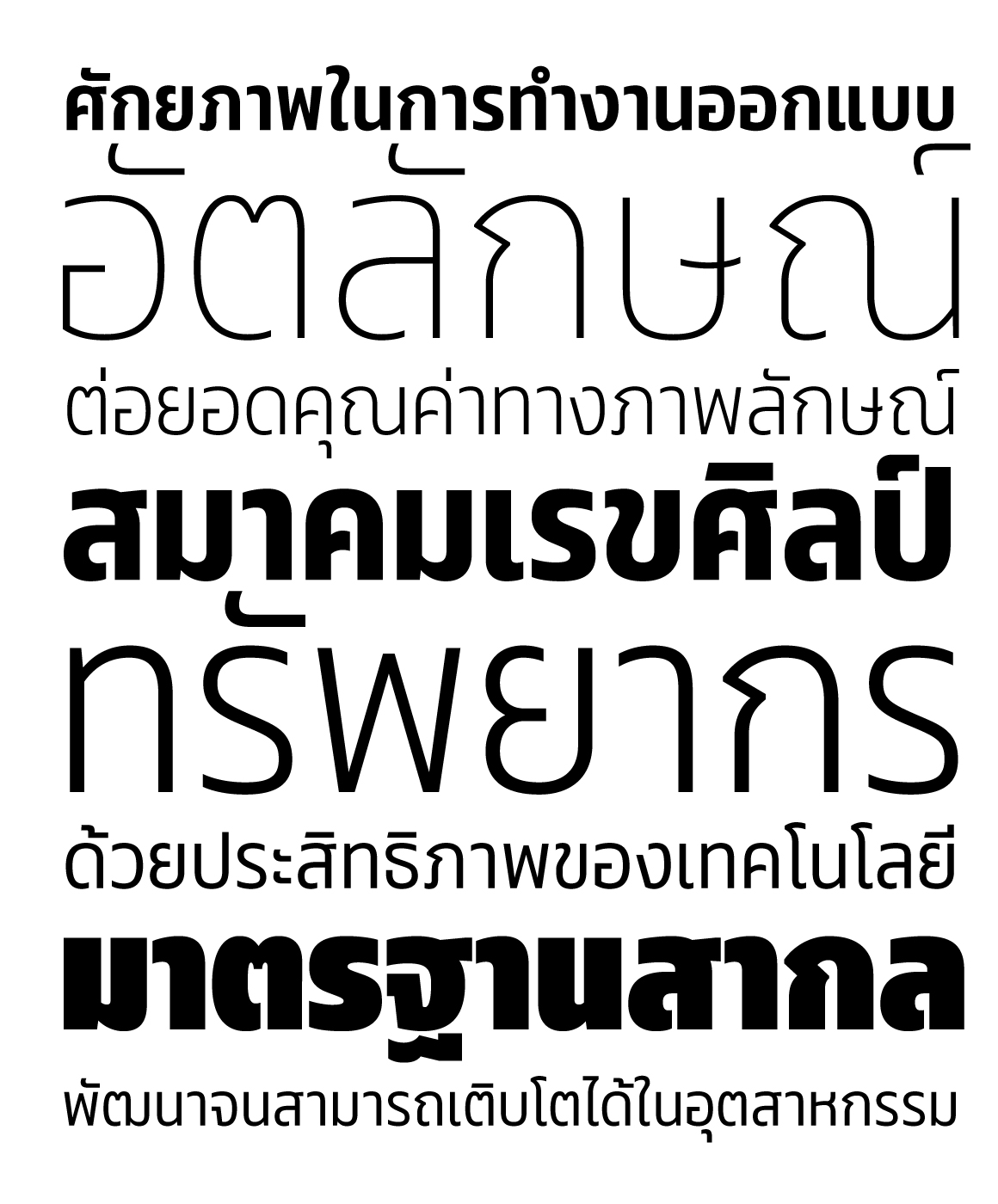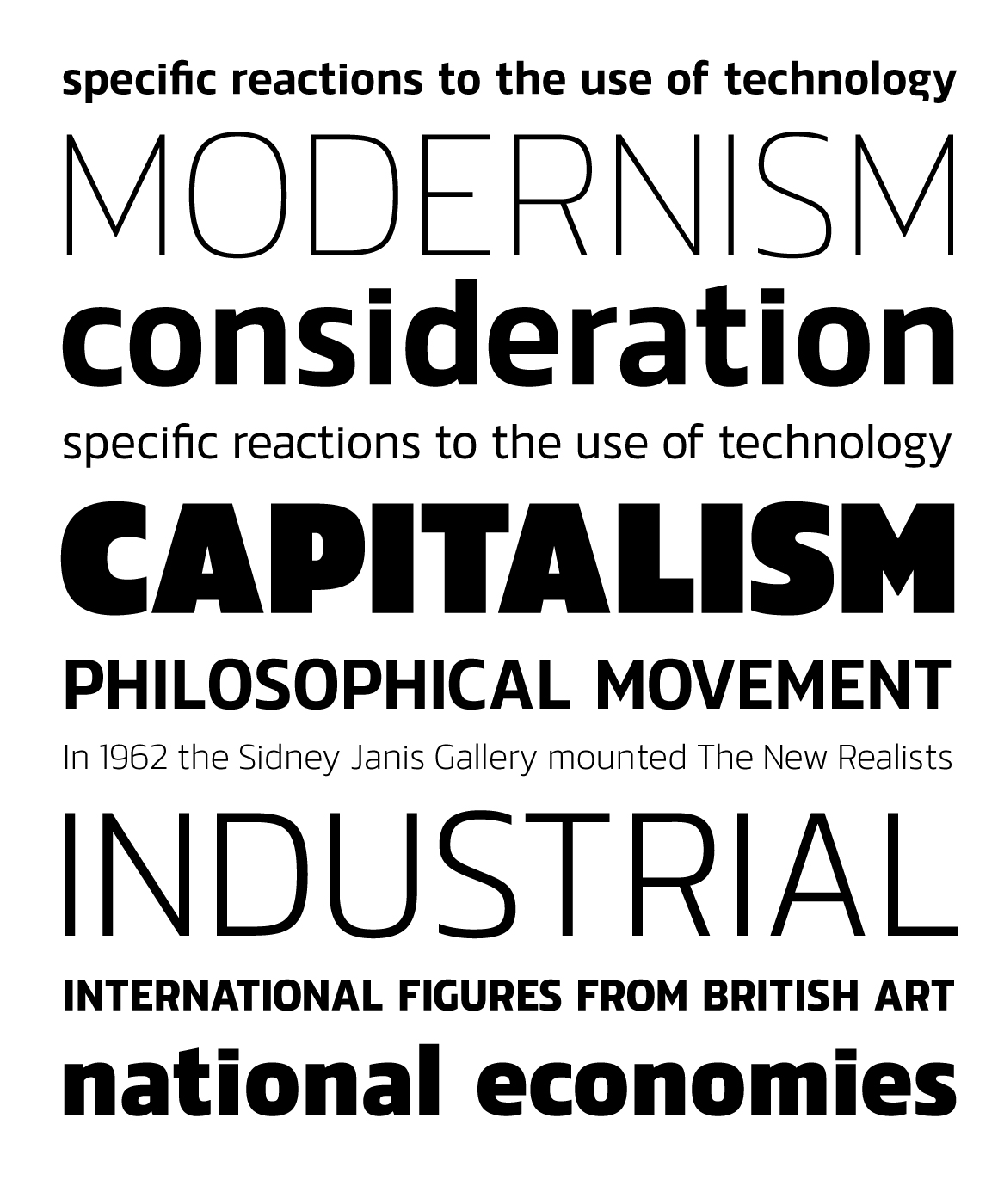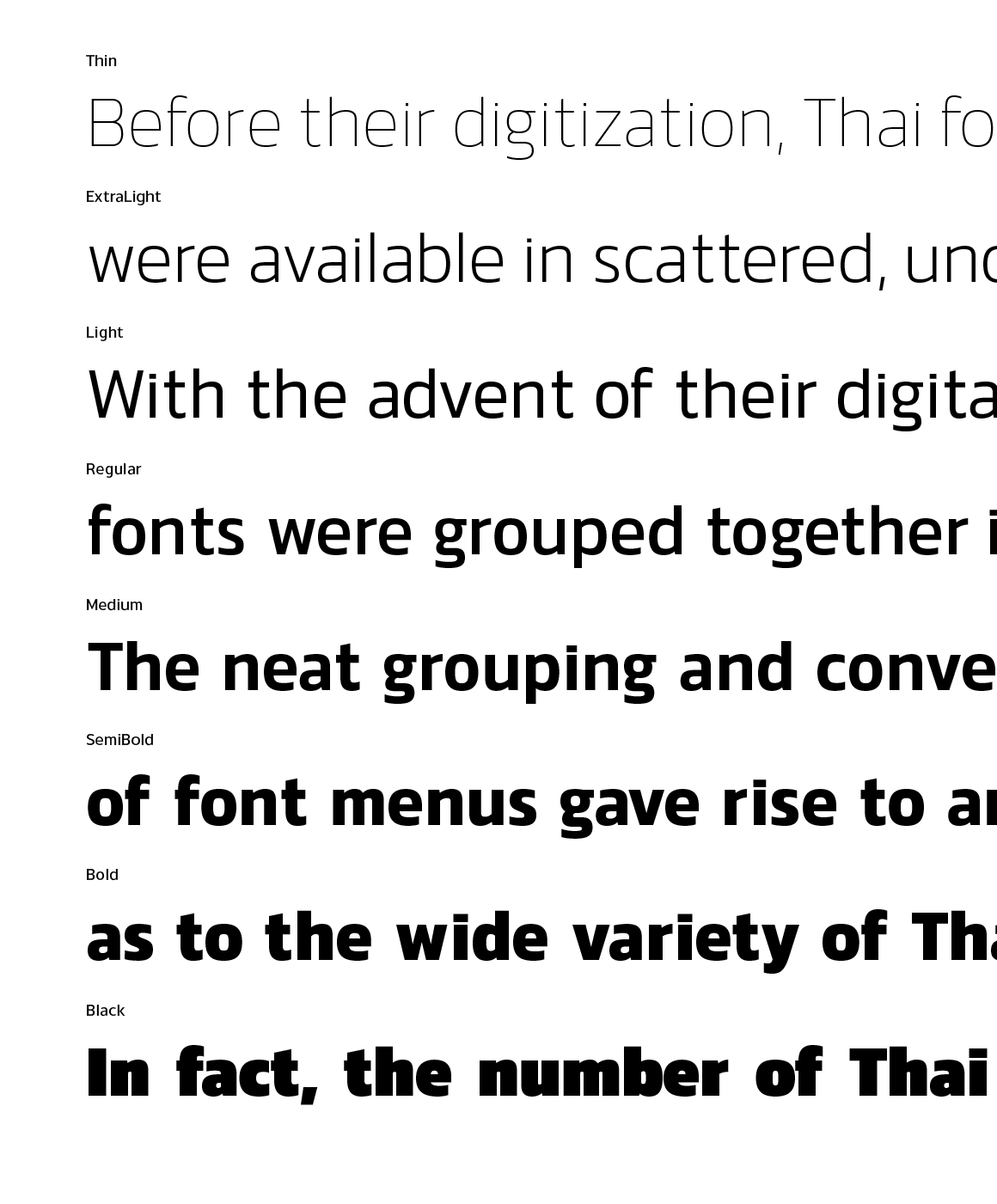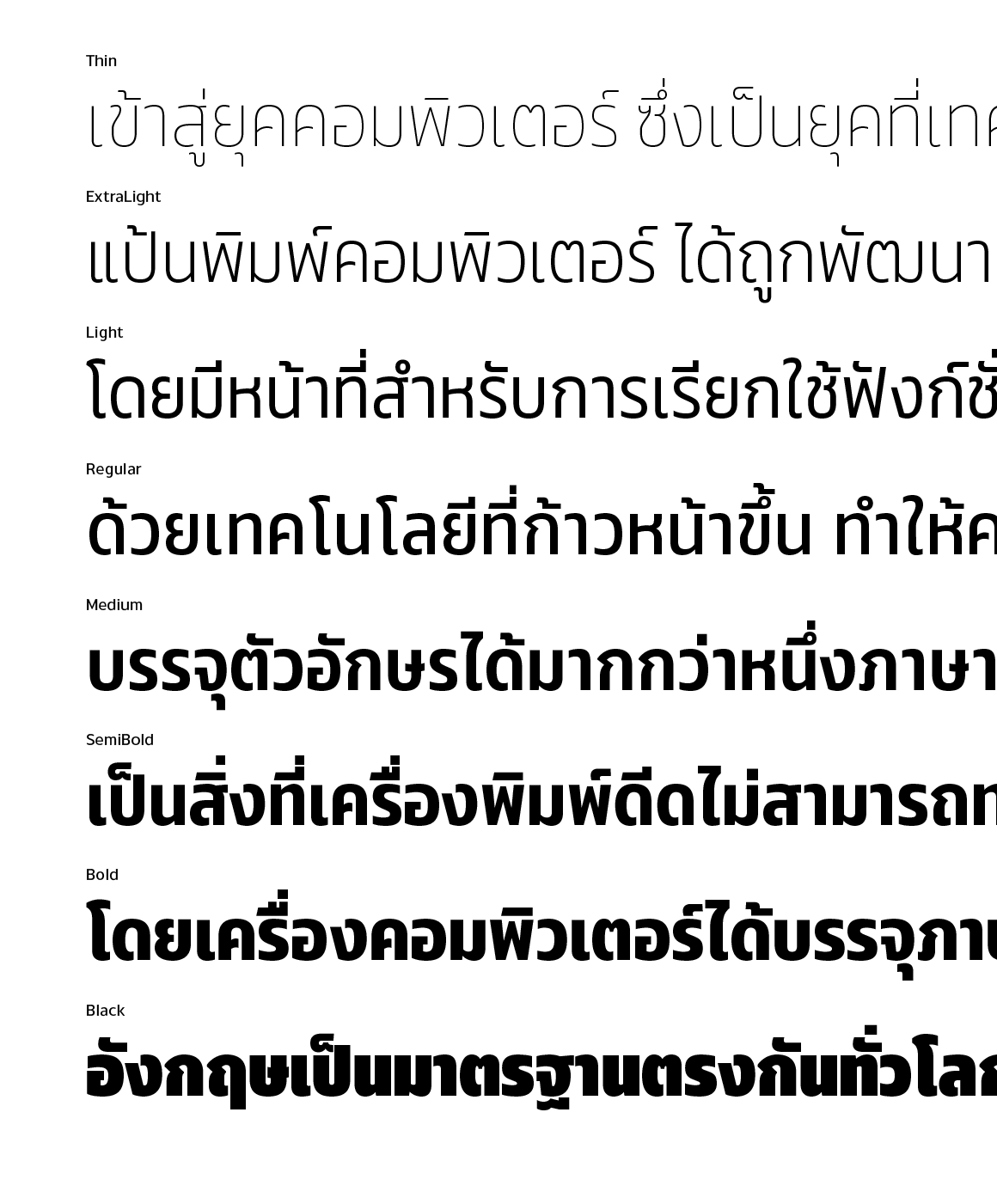
Udomsuk
Udomsuk™ (อุดมสุข) is a flexible family of modern sans serif and characterized by some humanistic. It has his own unique style in expressed perfect condensed forms, inspired by the classic industrial grotesque and geometric typefaces. The family has 8 weights ranging from Thin to Black.
Name : Udomsuk
Weight : Thin, ExtraLight, Light, Regular, Medium, SemiBold, Bold and Black
Language : Latin 1 / Latin 2 / Thai
Release Date : 2018
Designer :Thanarat Vachiruckul
Technician : Thanarat Vachiruckul, Suppakit Chalermlarp